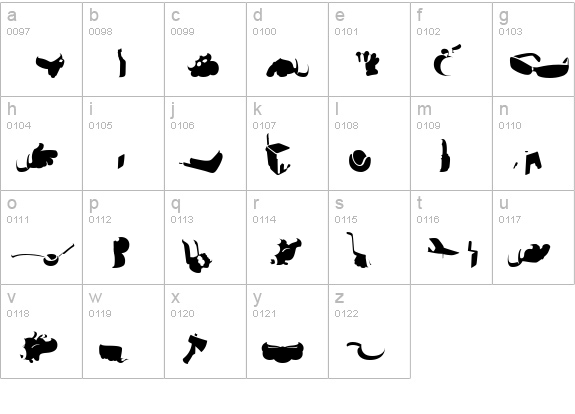
SaunaDingbats-Dimlght Font Details
SaunaDingbats-Dimlght is a unique and versatile font that adds a touch of elegance and playfulness to any design. With its intricate and stylish dingbats, this font is perfect for creating eye-catching logos, captivating headlines, and engaging social media posts. The beauty of SaunaDingbats-Dimlght lies in its ability to effortlessly blend into various design projects, whether they are for print or digital media. Each character is carefully crafted with attention to detail, resulting in a font that is visually striking and visually pleasing. As an added bonus, SaunaDingbats-Dimlght is free to download at FontsMarket.com. This means that designers, artists, and enthusiasts can easily access this font without any cost. Whether you're a professional designer or just starting out, this font is a valuable addition to your toolkit. The versatility of SaunaDingbats-Dimlght is unmatched, as it can be used in a wide range of design projects. From elegant invitations to fun and whimsical posters, this font has the ability to capture the attention of any audience. So why wait? Download SaunaDingbats-Dimlght for free at FontsMarket.com and start exploring the endless possibilities it has to offer. Enhance your designs, elevate your creativity, and make a lasting impression with this stunning font.